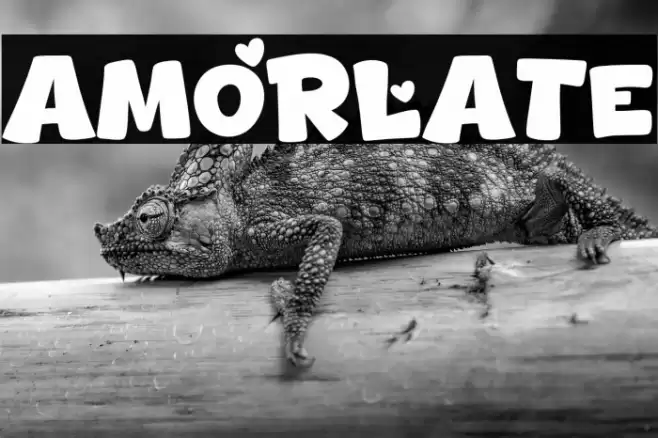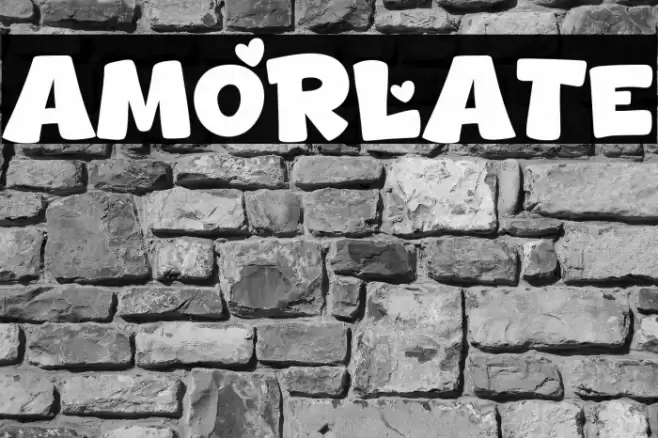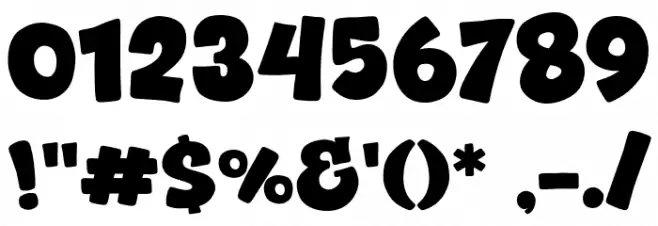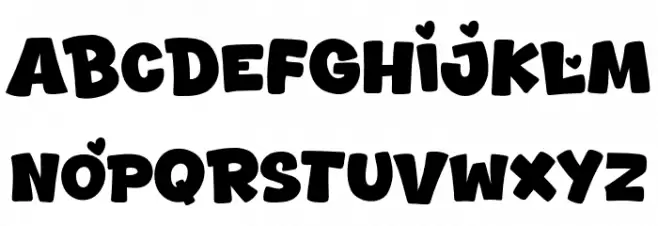
Amorlate Font
Amorlate Description
This playful and bold font features a whimsical design with heart-shaped accents on certain characters, adding a touch of charm and fun. The letters are thick and rounded, giving them a friendly and approachable appearance. The font maintains a consistent weight throughout, ensuring readability while still being visually engaging. The numbers and special characters follow the same playful style, making it suitable for a variety of creative projects. Its unique style makes it stand out, perfect for designs that require a touch of personality and warmth.
A playful, bold font with heart accents and rounded characters from Uncategorized fonts.
- Proposed Projects: Ideal for children's books, greeting cards, playful branding, and social media graphics.
- Overall Style: Playful
- Use Case: Logos, Headlines, Posters